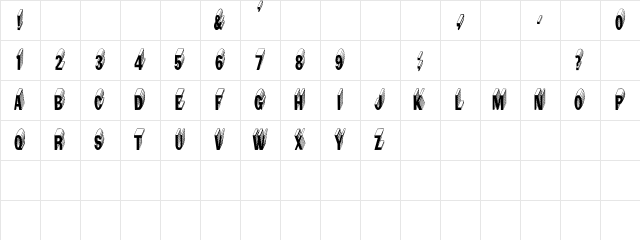
SalterTall Regular
Design Context for SalterTall
SalterTall is a composed and adaptable typeface that performs quietly and consistently across a wide range of design contexts.
Pro Tip: Use SalterTall in both headline and body roles to test its range before committing to a single application.